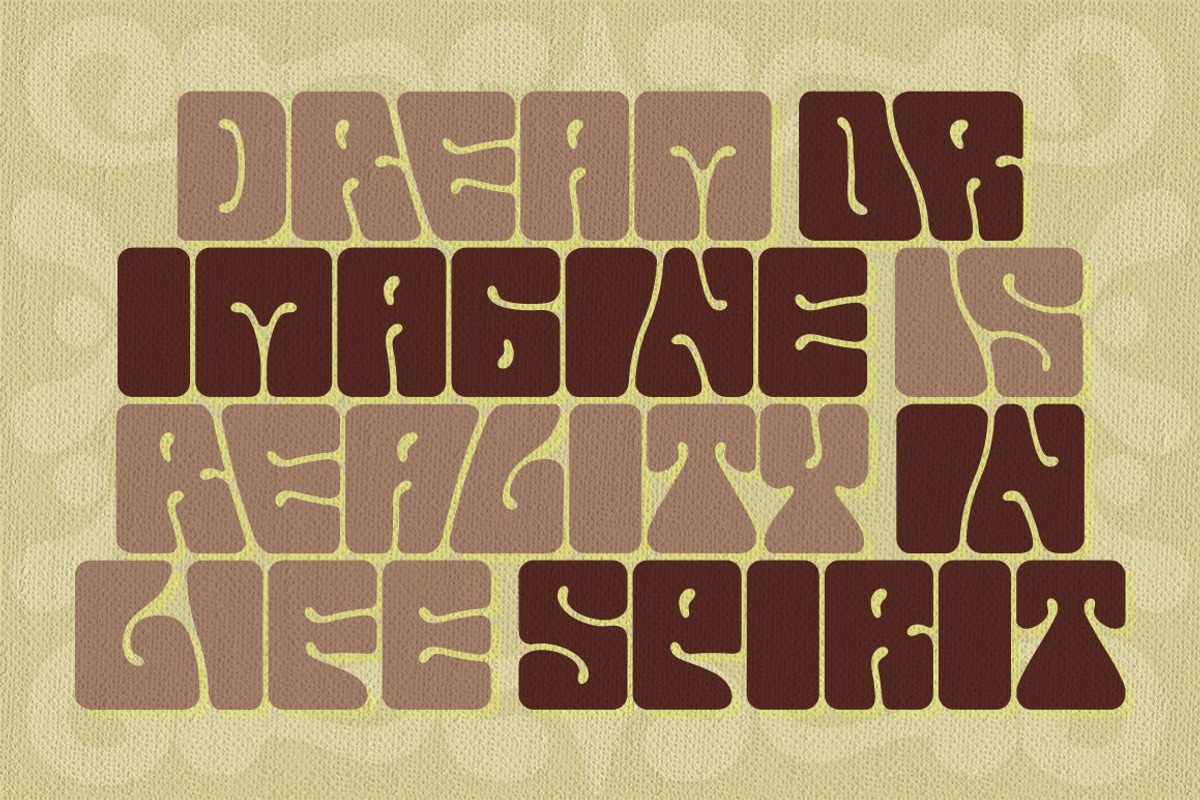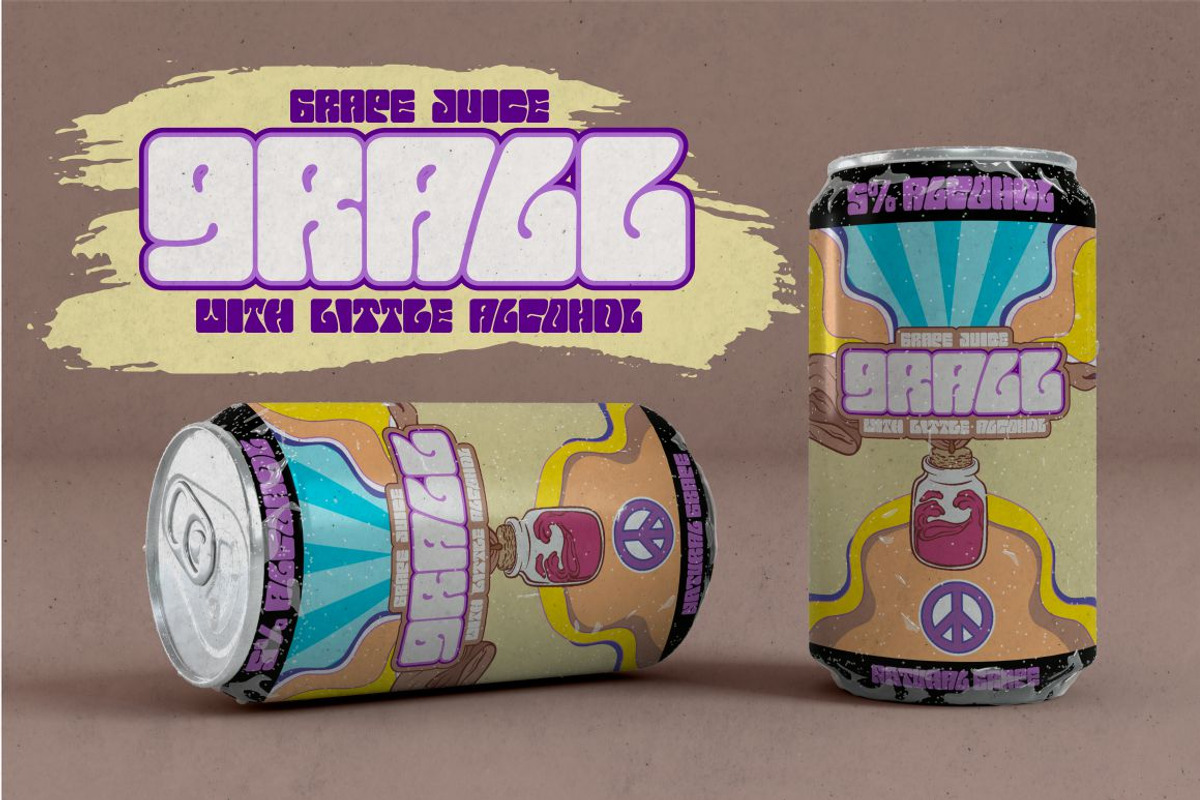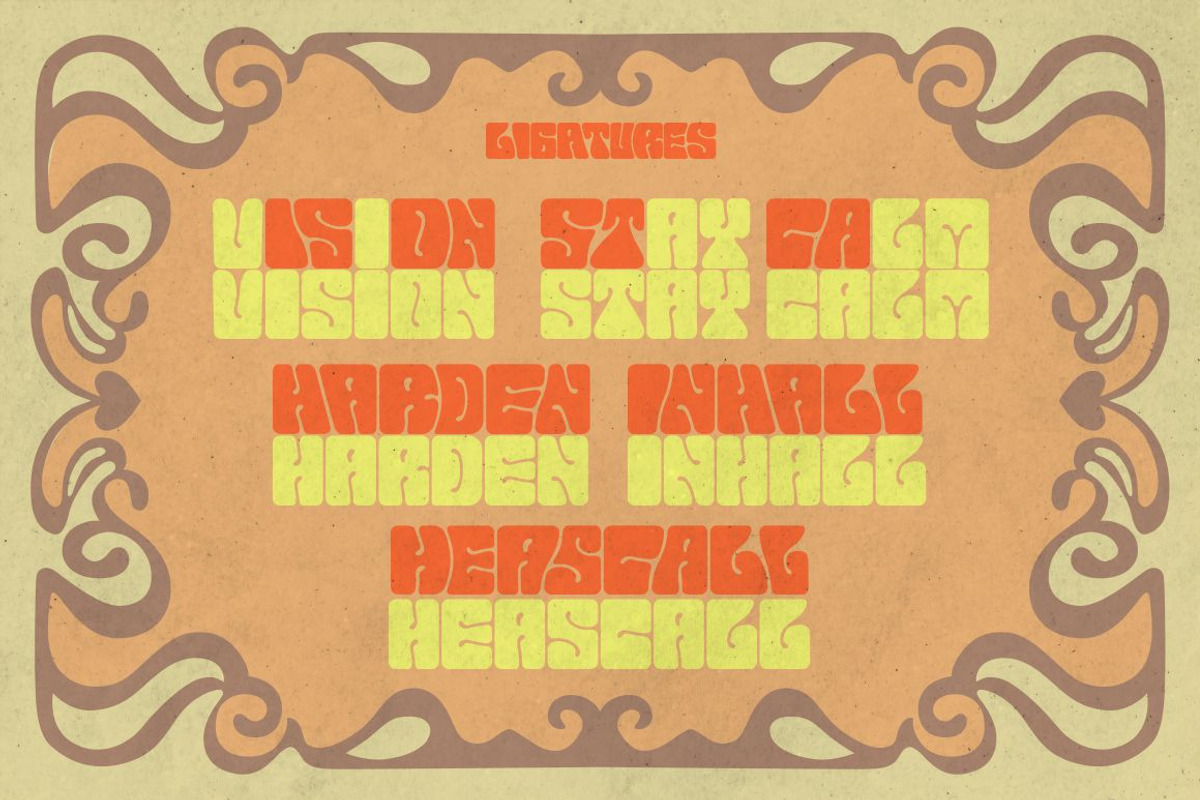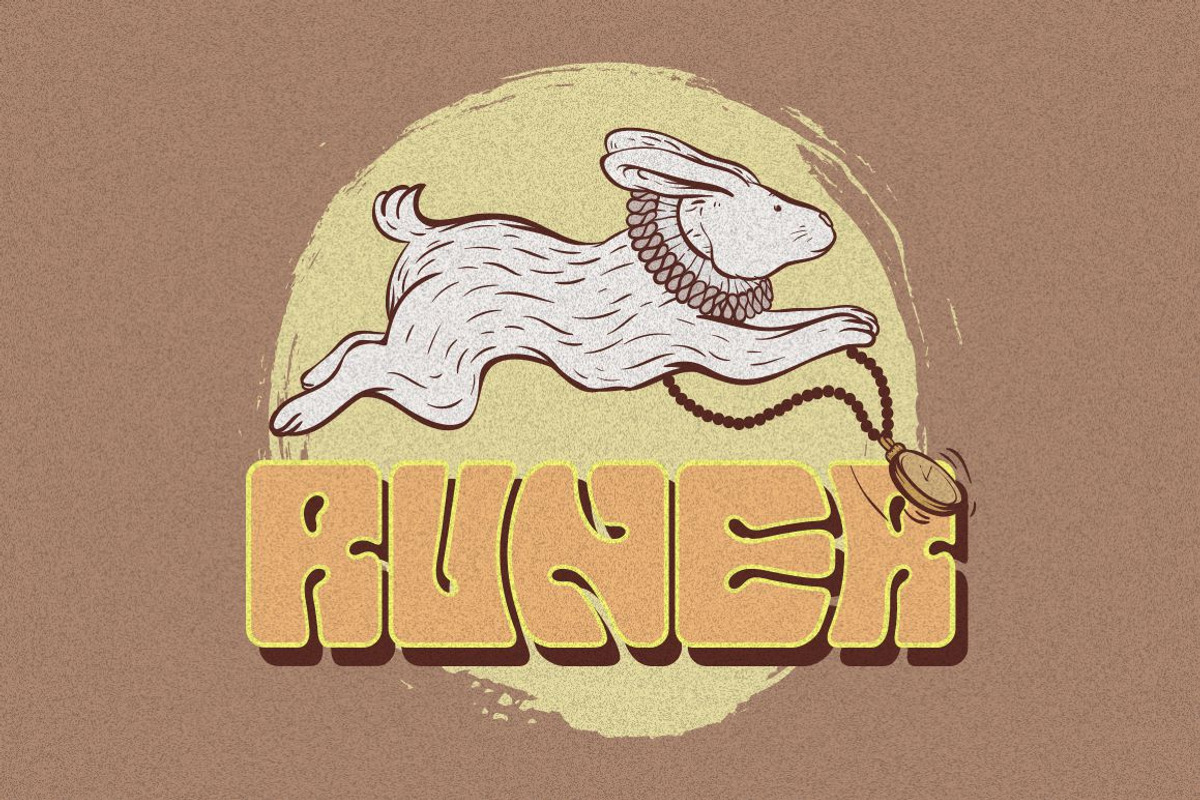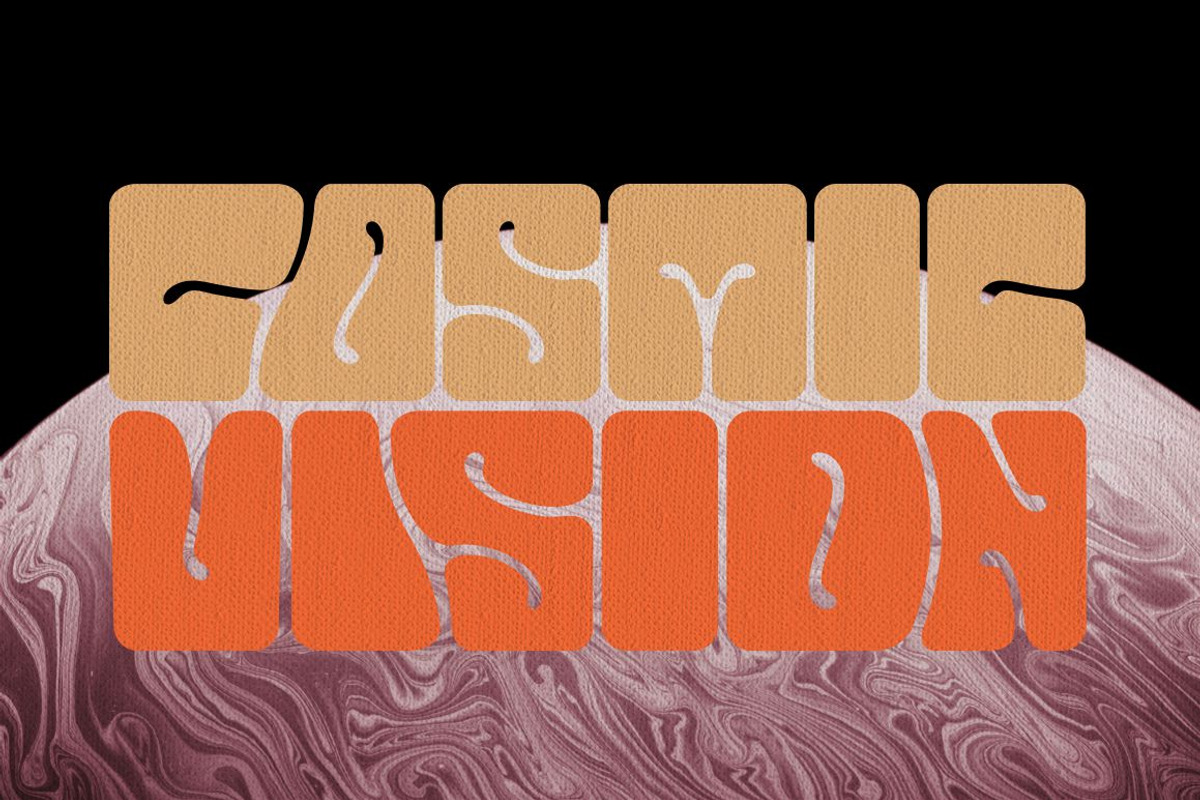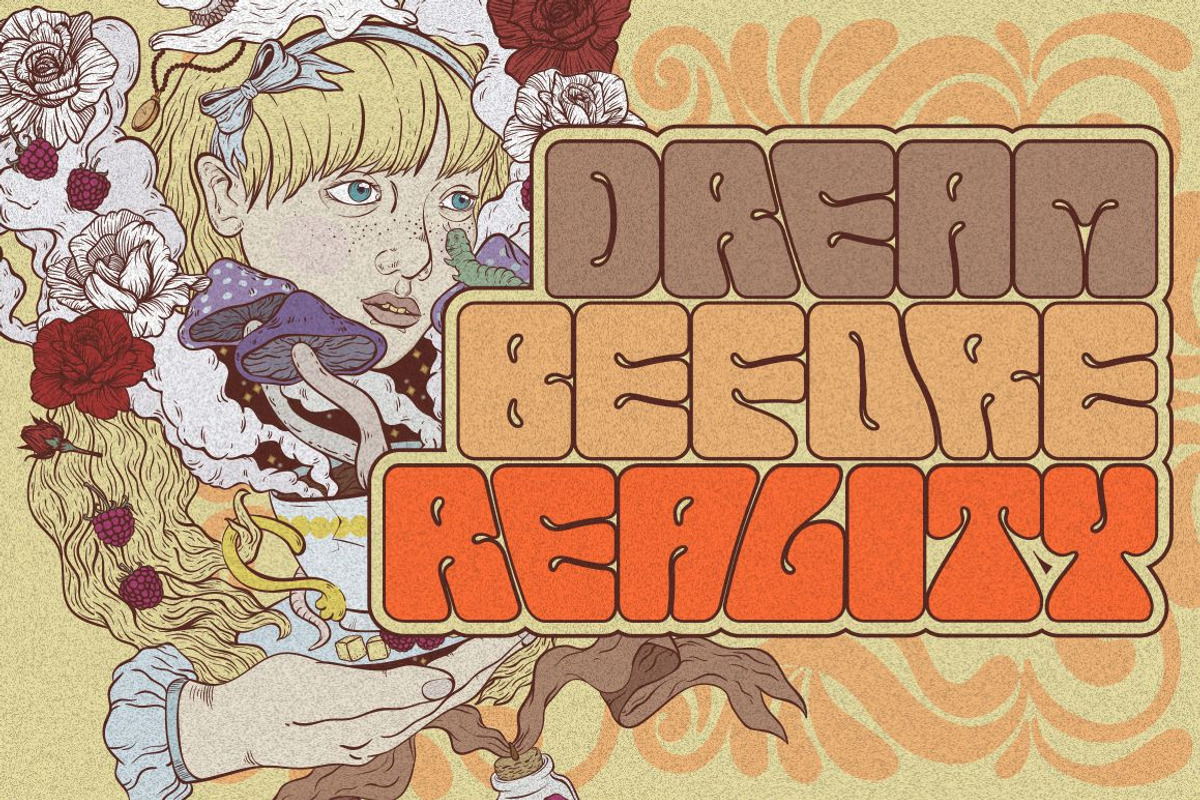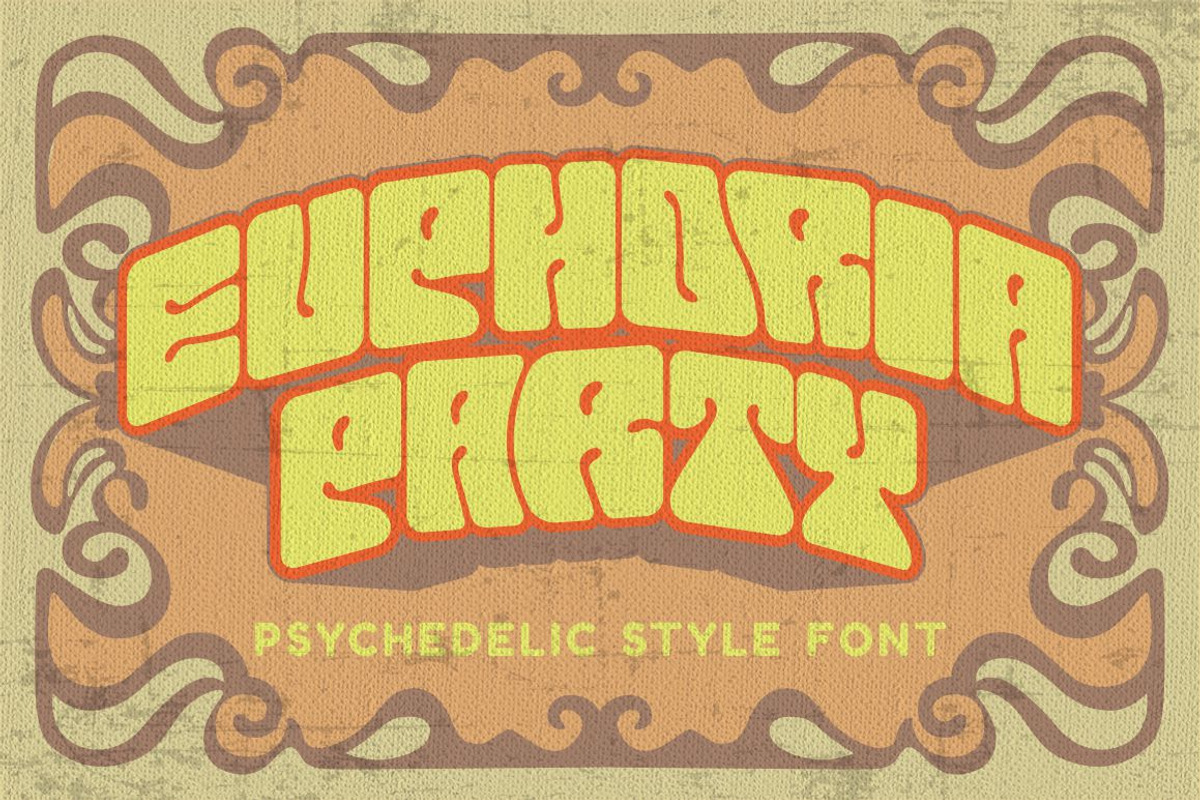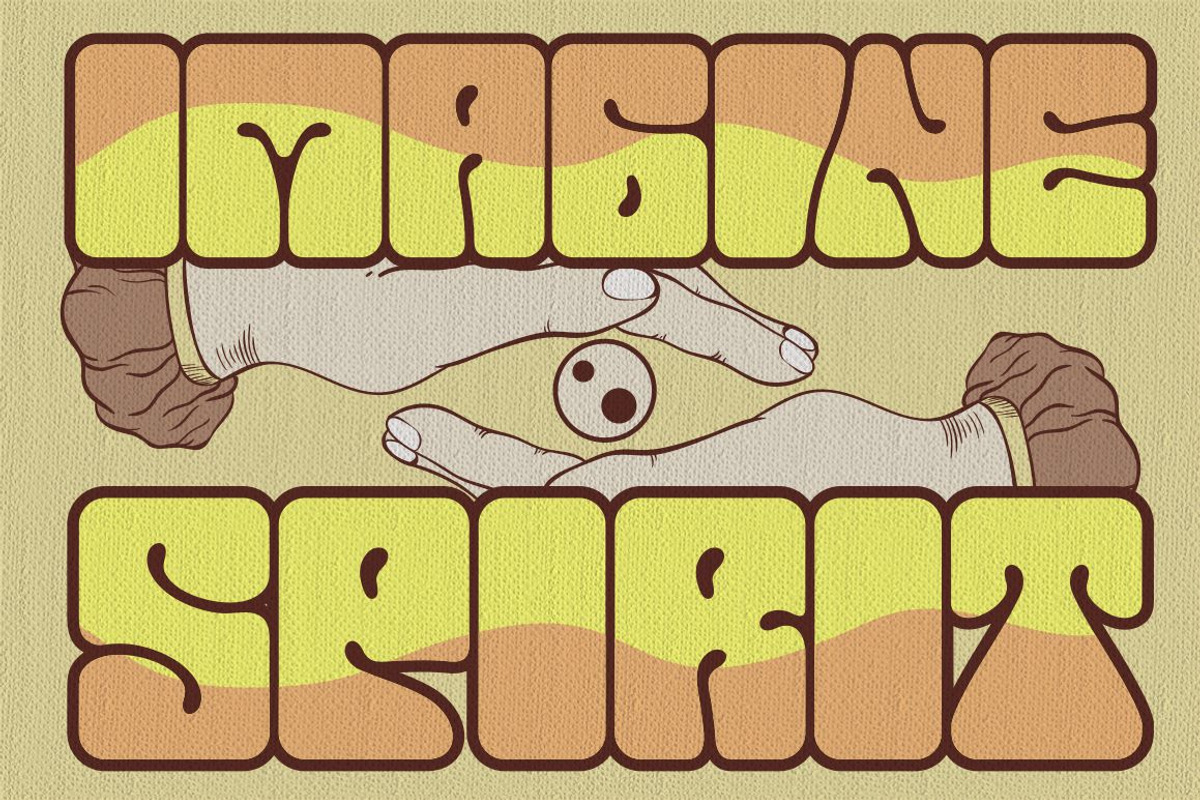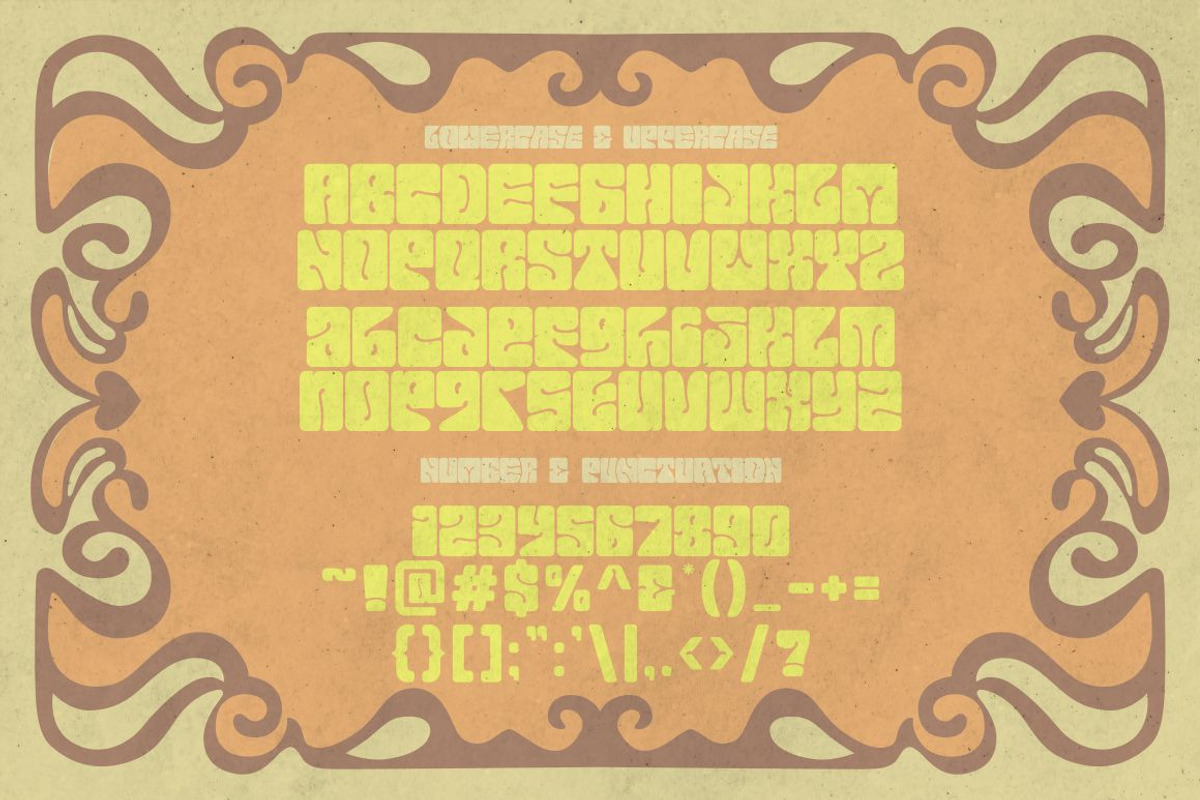
Euphoria Party - Psychedelic Font
Euphoria Party
Euphoria Party is a psychedelic style font. This font is inspired by vintage albums and posters from 1960s music bands. The classic, fun and groovy impression is very visible. But in this font I combine several variations such as the ligature. It makes this font even more unique and different. Euphoria Party is also great for any kind of display purpose from album, cover,poster, label, tshirt, apparel, signage, quote, logo, greeting card,logotype and many more. This font is also support multi language.
- Number, Punctuation And Symbols
- Multilanguage Support.